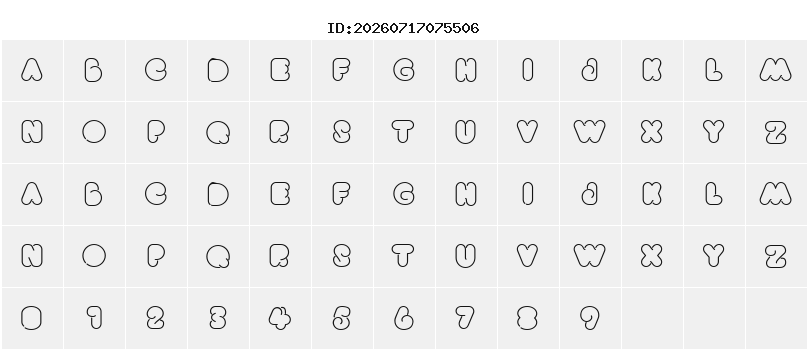
• Font Name: Bright Lights
• Font Style: Heavy
• Full Font Name: Bright Lights Heavy
• Designer: yong // oneonezero
About Bright Lights.ttf
Bright Lights.ttf is a modern, elegant sans-serif font designed for ultimate readability and visual harmony. Perfect for branding, headlines, web design, and print materials.